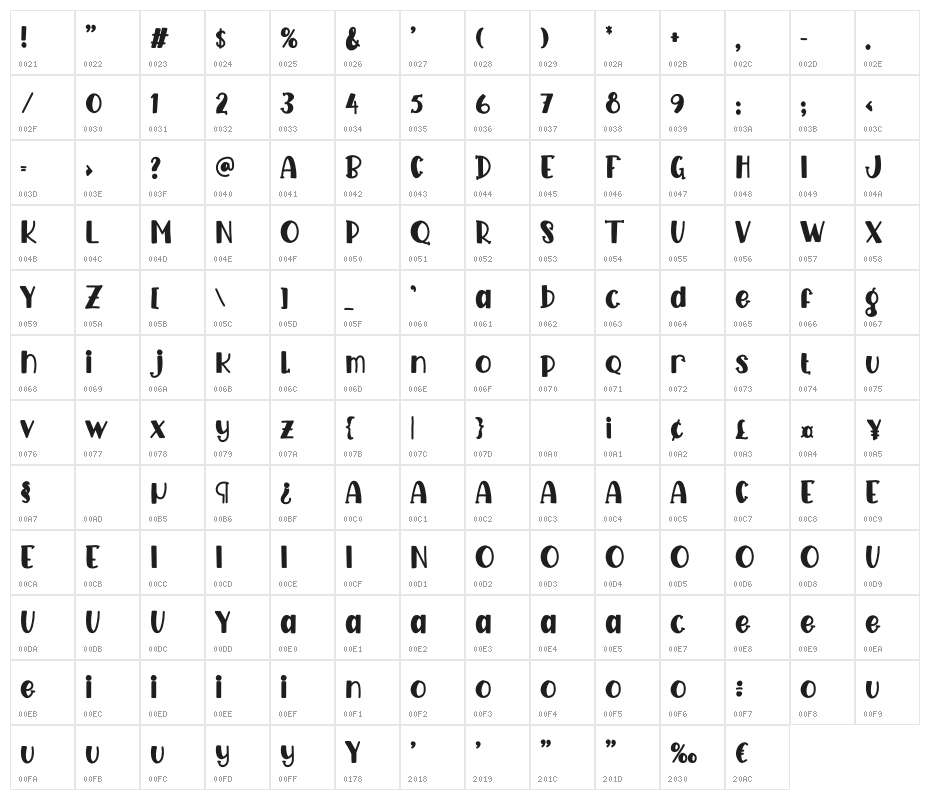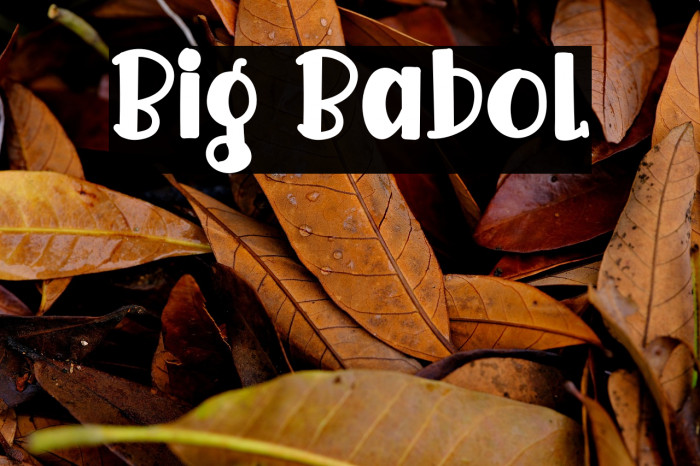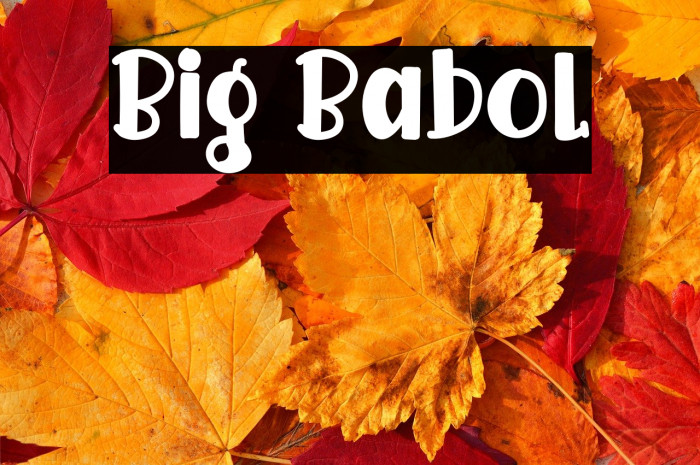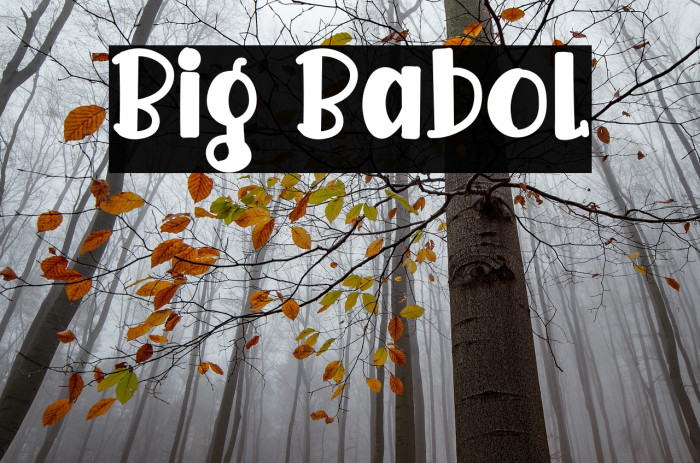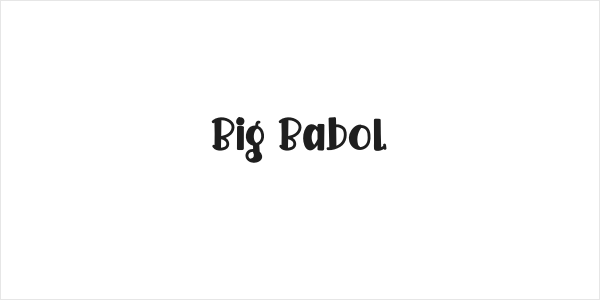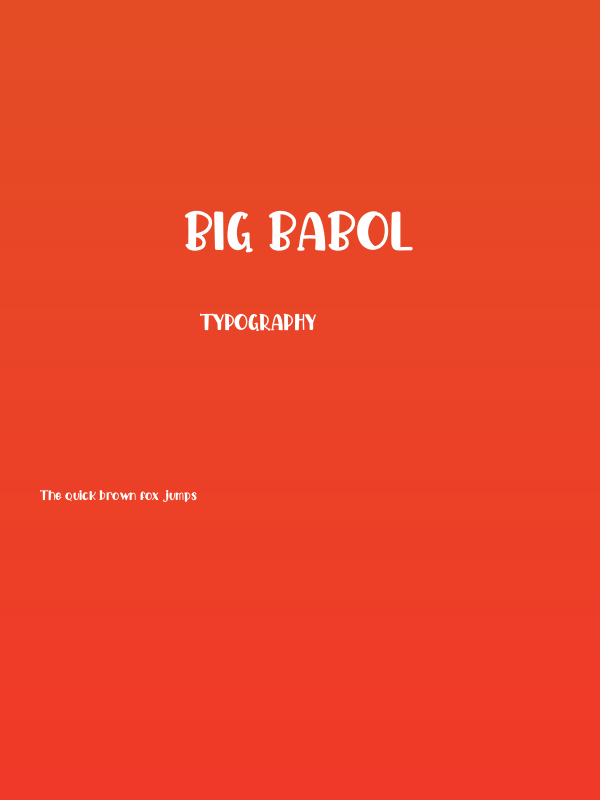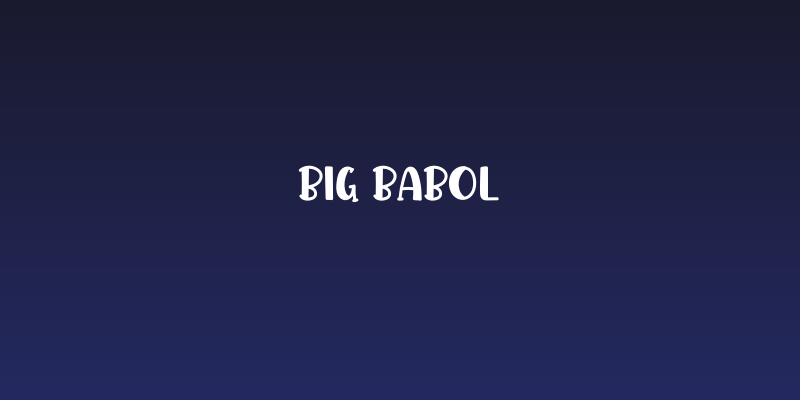
Big Babol Font
Big Babol Description
This playful and bold font features a whimsical and chunky style, characterized by its thick strokes and rounded edges. The uppercase letters are bold and assertive, while the lowercase letters maintain a friendly and approachable appearance. The numbers and special characters follow the same playful aesthetic, making the font suitable for creative and informal designs. Its unique style is reminiscent of hand-drawn lettering, adding a personal touch to any project. The font's overall appearance is both fun and dynamic, making it ideal for projects that require a lively and energetic vibe.
| Proposed Projects | Ideal for children's books, playful branding, posters, and any project needing a fun, energetic vibe. |